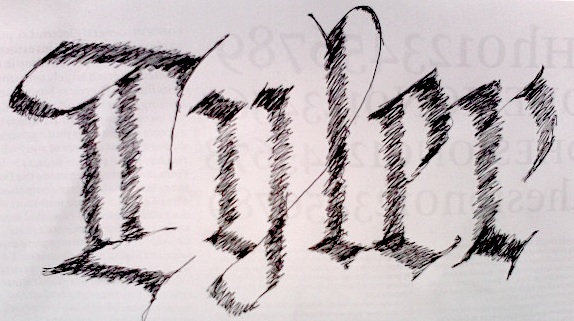
Writing Lessons from the Koch Book
About a year and a half ago, I purchased a copy of Das Schreiben als Kunstfertigket online. A German book on calligraphy, perhaps the German book on calligraphy, DSaKf (an acronym I just made up…) was written by Rudolf Koch during the early 1920s. The book’s title could be roughly translated as: Writing as a Technical Skill. The book is subtitled (again, this is a rough translation) “A complete introduction to the learning of the writing styles necessary for the profession of calligraphy.” The first edition of DSaKf was published in 1925. Several editions followed. The following summary is based on the third edition, which was published in 1934 by the Publishinghouse of German Book Designers in Leipzig (Verlag des Deutschen Buchgewerbevereins Leipzig).
The book block is a bit larger than A4. It contains 96 pages (including 23 pages of black and white photographs). The entire book is set in blackletter. Body text is in a Fraktur that might be Koch’s Frühling, but I can’t verify this yet. The bolder tiles and subtitles are set in Koch’s Maximillian, which is not exactly a Fraktur, but rather a combination of Fraktur, Schwabacher, and Gotisch (Textura). There is not color in th book. All of the text and imagery is black, on off-white paper.
Aside from calligraphic instruction, DSaKf has a chapter on book design and binding, a chapter on the making of diplomas and certificates, and an appendix that details the proper writing and the devleopment of Die Offenbacher Schrift (The Offenbach Hand), a handwriting system for school children that seems to be based on Sütterlin.
Anyone who ever wondered how Rudolf Koch formed his letters with a broad-nibbed pen can learn that from this book quite quickly and easily, so well-formed are the illustrations. How one writes in another style is only covered in this book contextually, not quite through imagery (except the schoolchildren’s script in the appendix; there are also a various number of styles depicted in the 23-pages of photographic reference at the back of the book).
Critique. The German critic Hans Peter Willberg (1930–2003), wrote in Typolemik that all of Koch’s students were trained to basically just copy his style, not to develop new writing forms. Reading this book, one would get that impression, too. It is important to remember that—especially with calligraphy—there can never be a “one size fits all” approach. The book’s own subtitle states that the book will instruct all manners of necessary hands. Yet real blackletter-variation is not covered. Neither is Antiqua or Grotesk, two styles that were well in practice by 1925 in Germany.
Some calligraphers believe that Koch’s interpretation of how the pen should be held is false. Koch implies in this book that the pen should be held so that the nib stays at a 45-degree angle. Edward Johnston had written earlier that the pen should be held so that nib is at a 30-degree angle.
Fazit. This is an invaluable book. Even if you cannot read German (or even if you can, but cannot read Fraktur), this book should be respected for the careers it launched. Many calligraphers in the decades after 1925 learned invaluable lessons from DSaKf’s pages. Together with Edward Johnston’s Writing and Illuminating & Lettering, you have about all the calligraphy books your library might ever need. DSaKf seems to sum up Koch’s ideas about writing, and Koch is consitantly held by typographers and calligraphers as one of the greatest masters of western calligraphic tradition. If you want to learn to write like Koch, this is the source. The images are understandable even without German fluency.